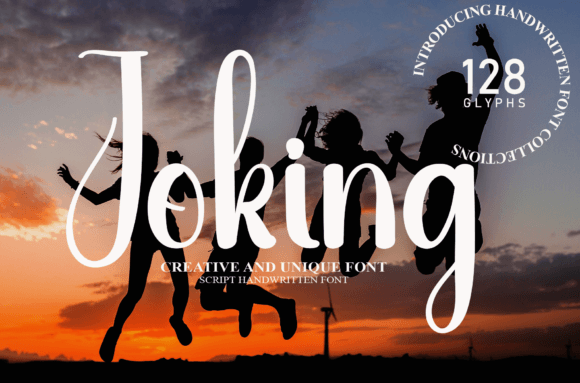
Introducing Joking Font: A Playful Handwritten Masterpiece
Journey into the realm of enchanting typography with Joking Font, an exquisite creation by William Jhormy. This captivating script font exudes sweetness and approachability, infusing your designs with a touch of whimsy and heartfelt charm.
Crafted with the utmost care and attention to detail, Joking is a handwritten font that dances across the page, bringing life to your words. Its fluid, cursive strokes evoke a sense of elegance and personal connection, making it the perfect choice for a wide range of creative projects.
Whether you're designing wedding invitations, greeting cards, posters, or social media graphics, Joking is the perfect font to add a touch of playfulness and delight. Its versatility knows no bounds, lending itself effortlessly to both formal and casual settings.
Imagine the joy of receiving a wedding invitation adorned with Joking font. The graceful letters would dance before your eyes, creating a sense of anticipation and excitement for the special day. Or picture a heartfelt greeting card, its message penned in Joking font, conveying your warmest wishes with a touch of whimsy.
With Joking font, your creative expressions take on a life of their own. Its charming personality adds depth and dimension to your designs, capturing the attention of your audience and leaving a lasting impression.